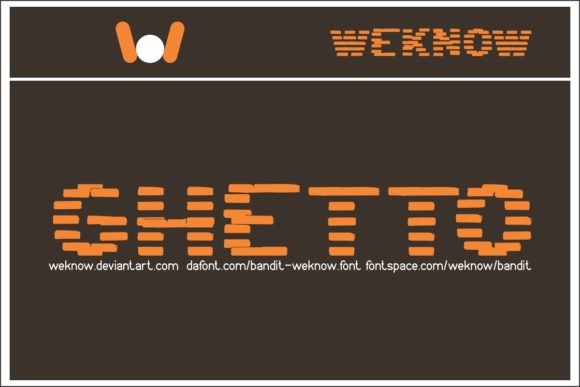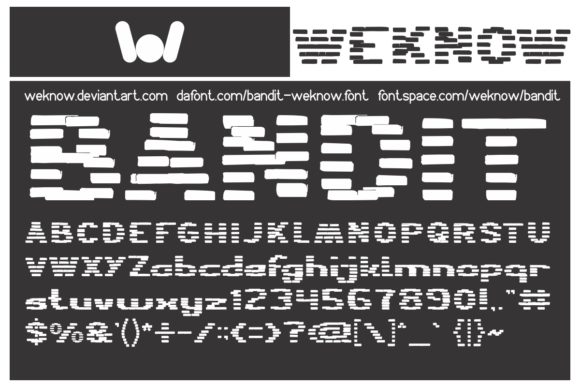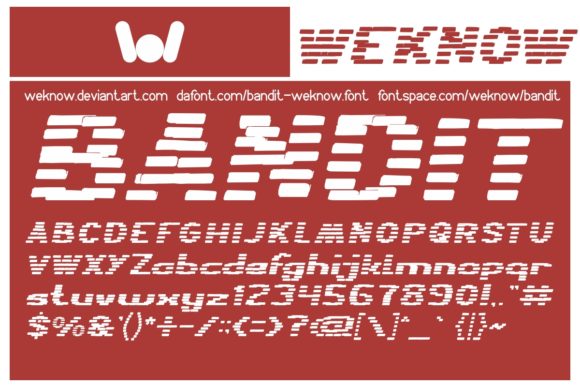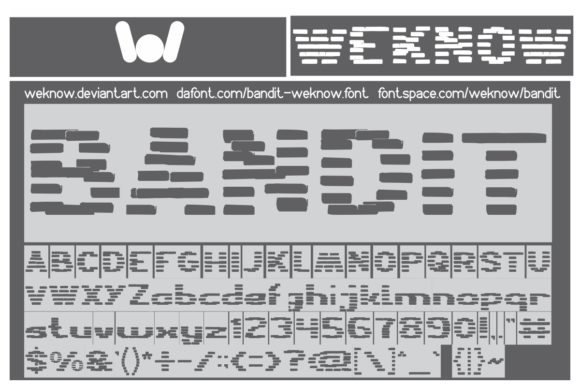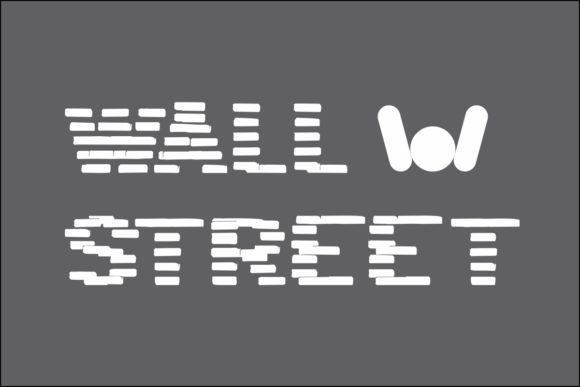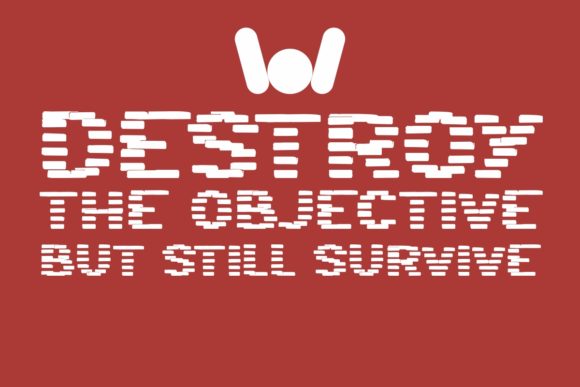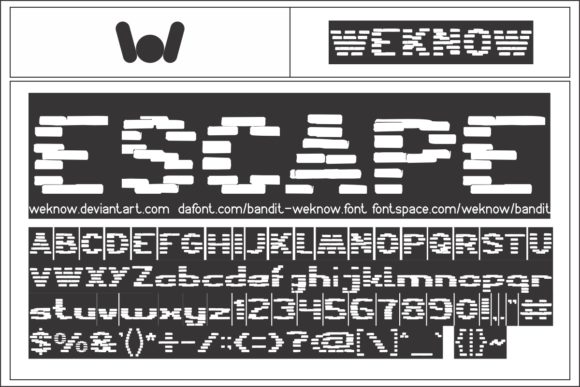
Meet Your New Best Friend: Bandit Font
You know that moment when you’re brainstorming ideas for a new project, and suddenly, a spark of creativity hits you? The world lights up, and you can’t wait to bring your vision to life. That’s exactly what happens when you get your hands on the Bandit Font – a delightful display font that’s sure to capture your imagination and inspire your next creative endeavor.
This charming font is designed to add a touch of whimsy and personality to your designs. Whether you’re working on a logo, social media graphics, or even a children’s book, Bandit Font is the perfect companion to help you convey your message in a fun and engaging way. For designers, it’s a valuable asset that can elevate their work and make it stand out from the crowd.
Bandit Font Key Features
- Unique Characteristics: The Bandit Font features a unique, hand-drawn style with bold lines and playful letterforms, giving it a distinctive and eye-catching look.
- Character Set: The font includes a wide range of characters, including Latin, Cyrillic, and Greek alphabets, as well as punctuation and special characters.
Bandit Font Review
Overall, I’d say the Bandit Font is an interesting choice for designers looking for a unique sans-serif typeface. ✨ The font’s distressed texture and worn feel give it a rugged, edgy vibe that can work well for bold, attention-grabbing headlines.
Some of the things that work well for the Bandit Font include:
- ✨ Its versatility in conveying a sense of rebellion and nonconformity.
- ✨ The subtle, hand-crafted feel that adds a touch of human imperfection to digital design.
- ✨ Its potential to add visual interest to designs that might otherwise feel too clean or corporate.
- ⚠️ The font may not be suitable for body text or long blocks of text, as its distressed texture can make reading difficult.
- ⚠️ The font’s bold, attention-grabbing nature may not be suitable for all types of designs, particularly those that require a more subtle or professional tone.
- ⚠️ The font’s distressed texture may not be suitable for designs that require a high level of precision or accuracy, as the texture can sometimes be distracting or overwhelming.
Overall, I’d say the Bandit Font is a great choice for designers who want to add a touch of edge and rebellion to their designs. However, it’s essential to use it thoughtfully and in moderation, as its limitations can sometimes outweigh its benefits.
Getting the Most Out of Bandit Font
To get the most out of the Bandit font, try combining it with other bold or distressed fonts to create a unique and eye-catching design. Experiment with different font sizes and styles to add texture and interest to your design.
The Bandit font is perfect for:
- Distressed or vintage-inspired designs.
- Streetwear or graffiti-style graphics.
- Edgy or rebellious branding.
Alternatives to Bandit Font
Fontin is a sans-serif font that shares similarities with Bandit Font in its geometric and modern aesthetic. It is ideal for use in headings, titles, and other large-scale typography where a strong, bold feel is required. Fontin is more condensed than Bandit Font, making it suitable for use in narrow columns or limited spaces.
Montserrat is a sans-serif font that is often compared to Bandit Font due to its urban, geometric feel. It is highly versatile and can be used in a wide range of applications, from body text to headings. Montserrat is more rounded than Bandit Font, giving it a softer and more approachable feel.
Inter is a modern sans-serif font that is designed to be highly legible and versatile. It is a good alternative to Bandit Font for use in digital interfaces, such as websites and mobile apps, where a clean and modern aesthetic is required. Inter is more rounded than Bandit Font, but still maintains a strong, geometric feel.